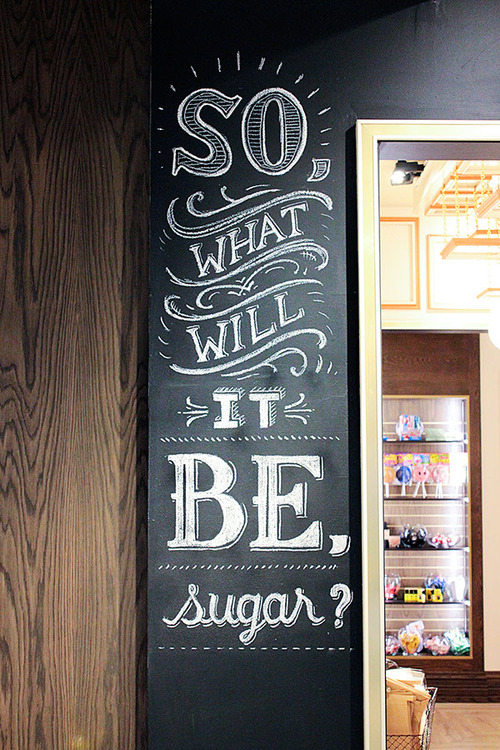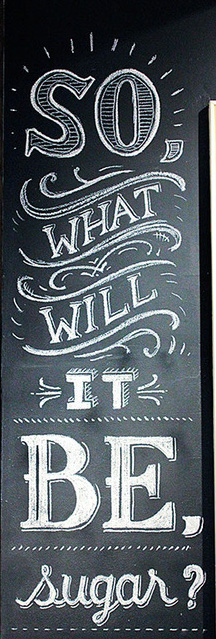
Typeface Anatomy – Katie Tufts
I chose this picture of typeface because there were a couple different ones to look at in this picture and they were all different from each other. Each typeface seems to have a serif except for the word “it” which the artist just gave a 3D look instead. The letters B and E both have a very big and bold spines as well as an equal cap height. Both of those elements combined help make the word “be” so bold, also by having both letters be in all caps influence the boldness. The words “what” and “will” are both tilted at a slant which kind of gives them a stretched look almost. Each letter in those words is a serif and all are at an equal height. Comparing the words “so” and “be”, “so” has a lighter fill inside
tumblr_nco1cmwP4d1qji3xao3_500adfgr the letters compared to “be” which I think makes it stand out less. It seems like the word “be” is a bigger font than “so” because of the different fill when they might even be the same size. The word “sugar” is interesting because the S and the R both exceed the cap height while the other letters are all of equal height. It would make sense that the capital S will exceed the cap height because all the other letters are in lower case, which makes the R kind of funny to me because it is in lower case and exceeds the cap height. What also makes this word more interesting is the G’s descender. The letter G is in the middle of the word and the descender hangs lower in the descender height than all the other letters. It almost seems kind of symmetrical to me with the two outside letters extending above the other letters and then the middle letter extending lower than all the other letters. It gives it a sense of balance.